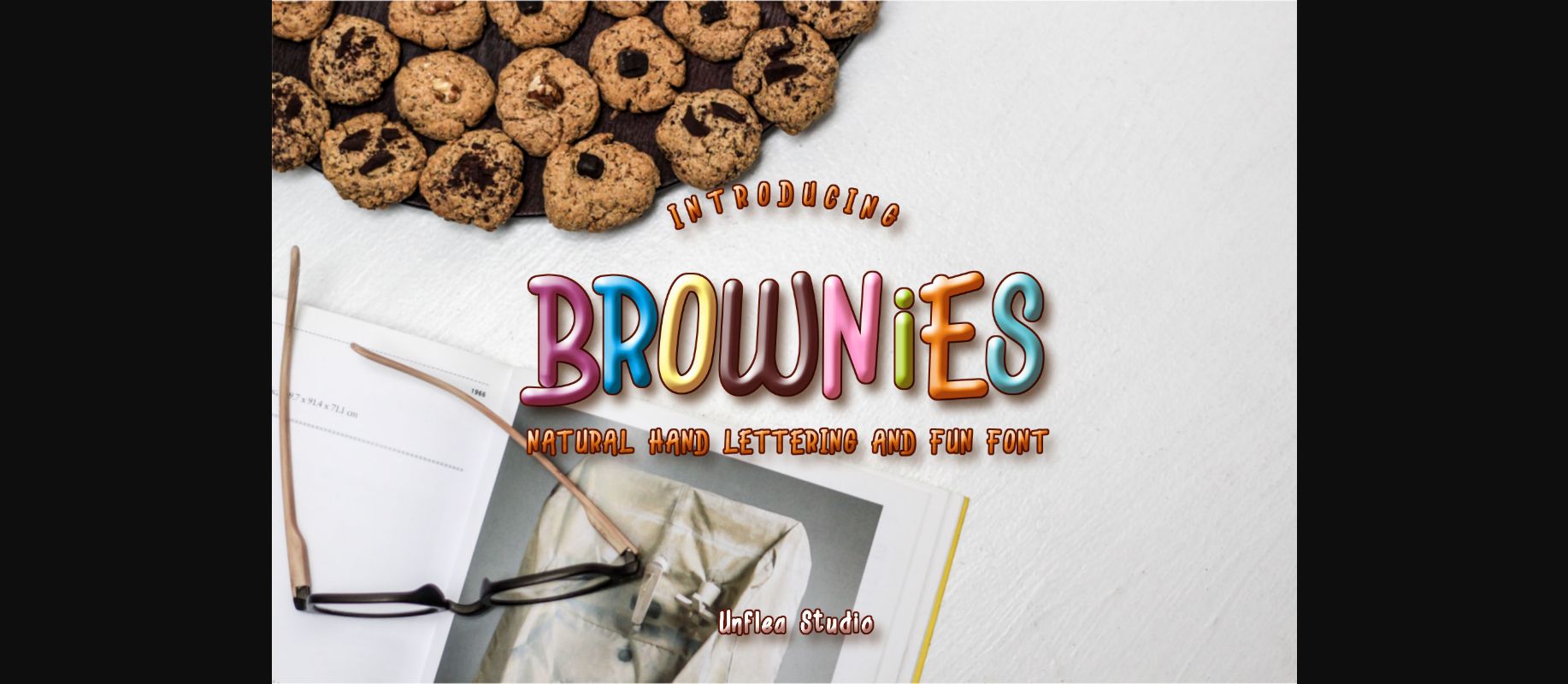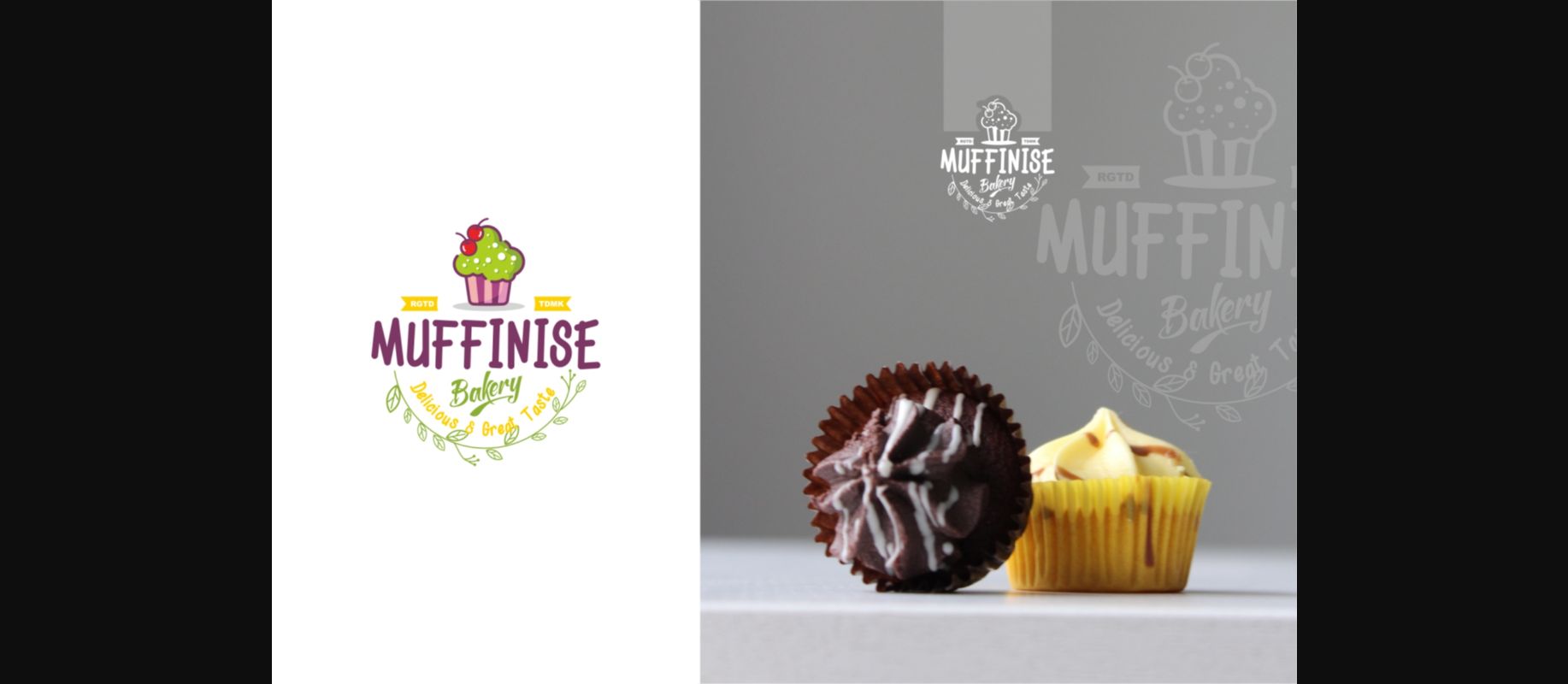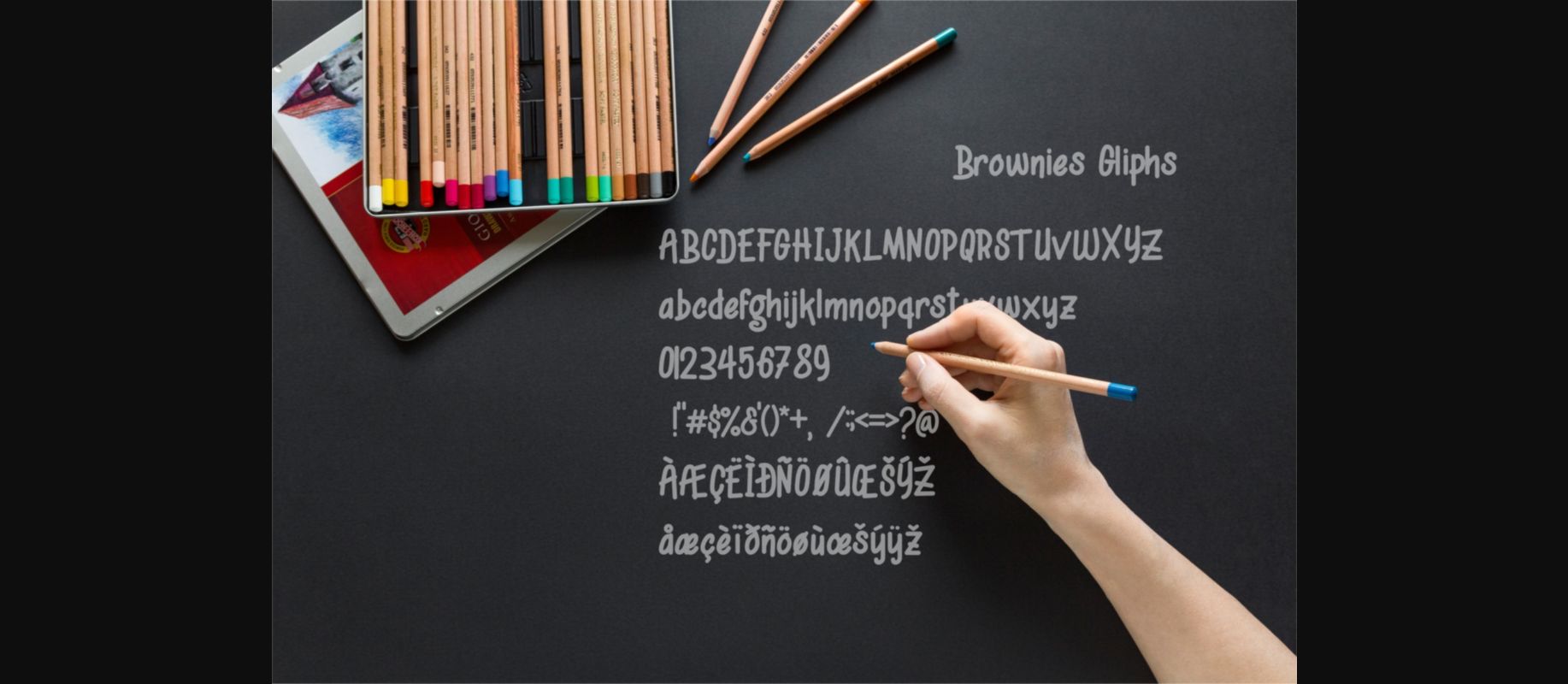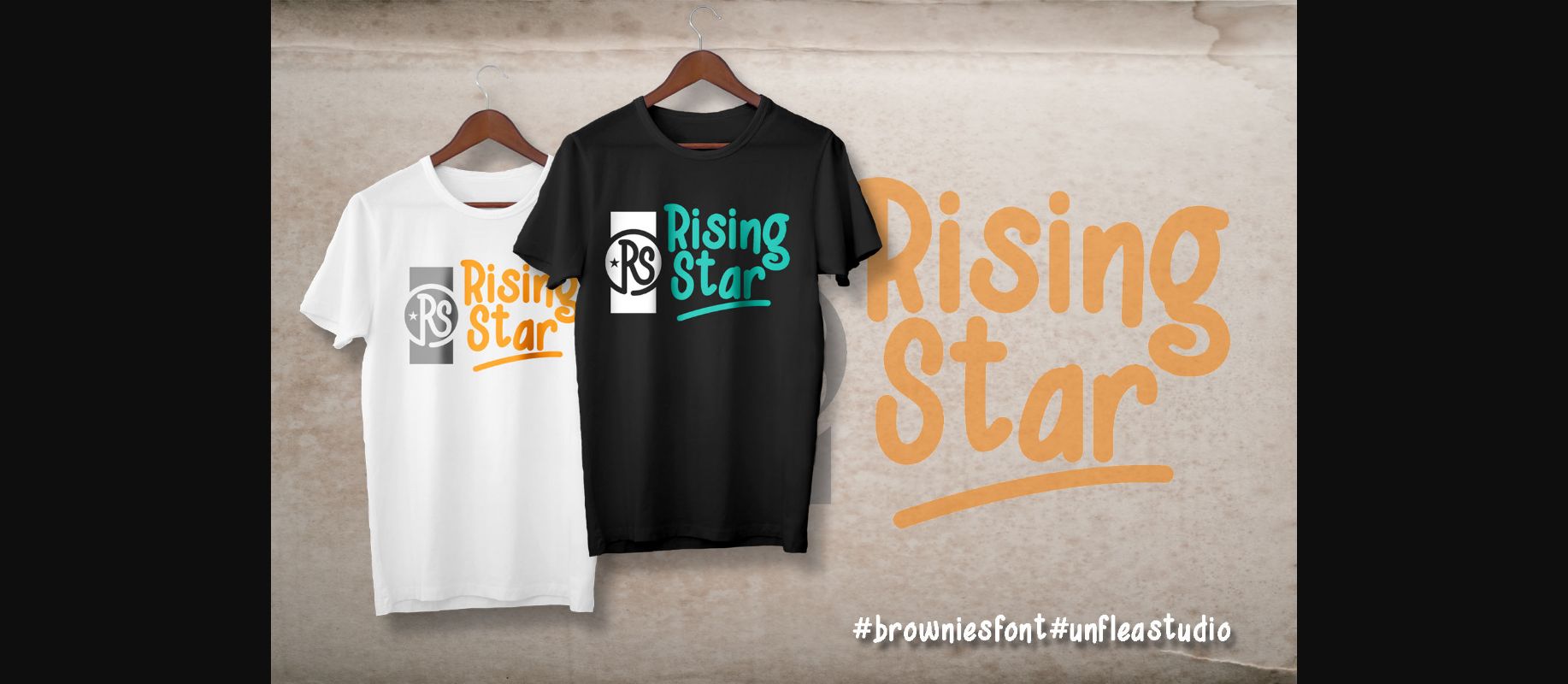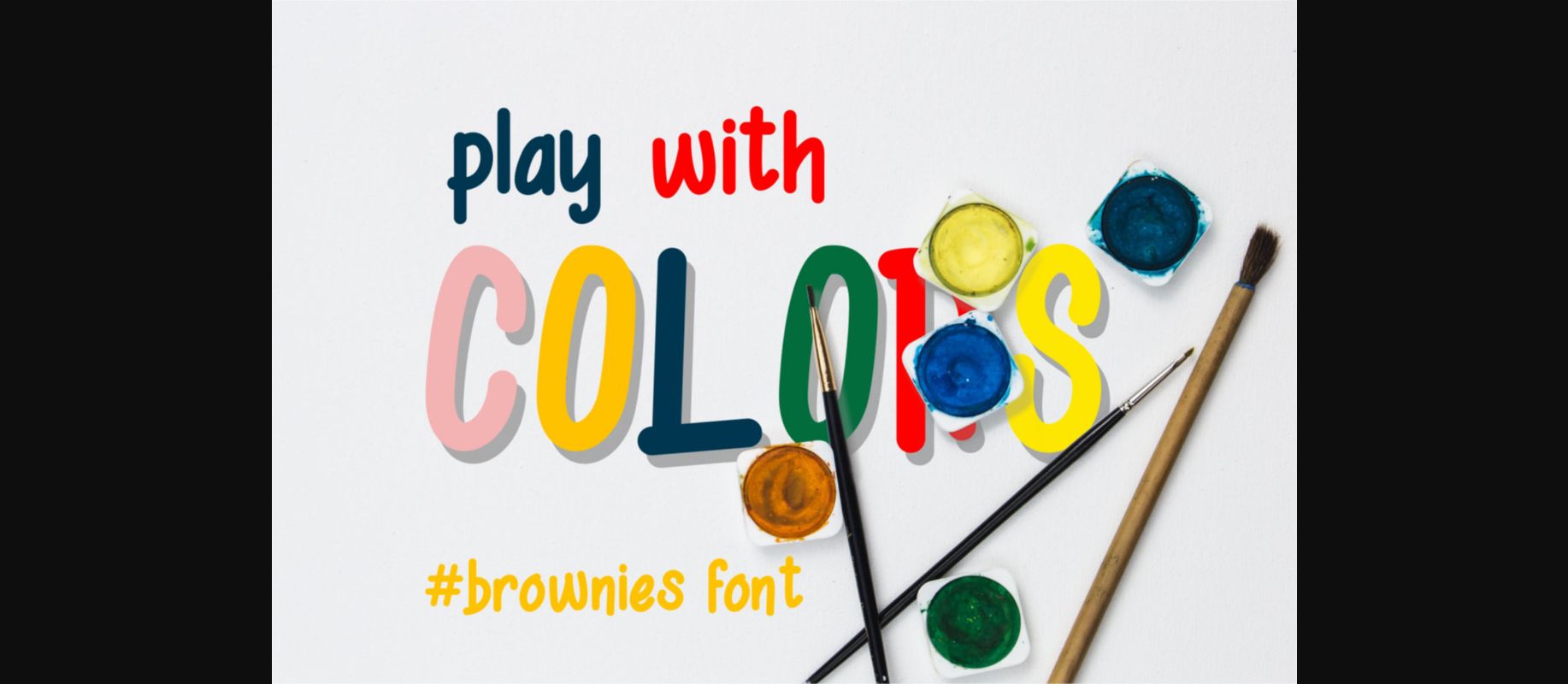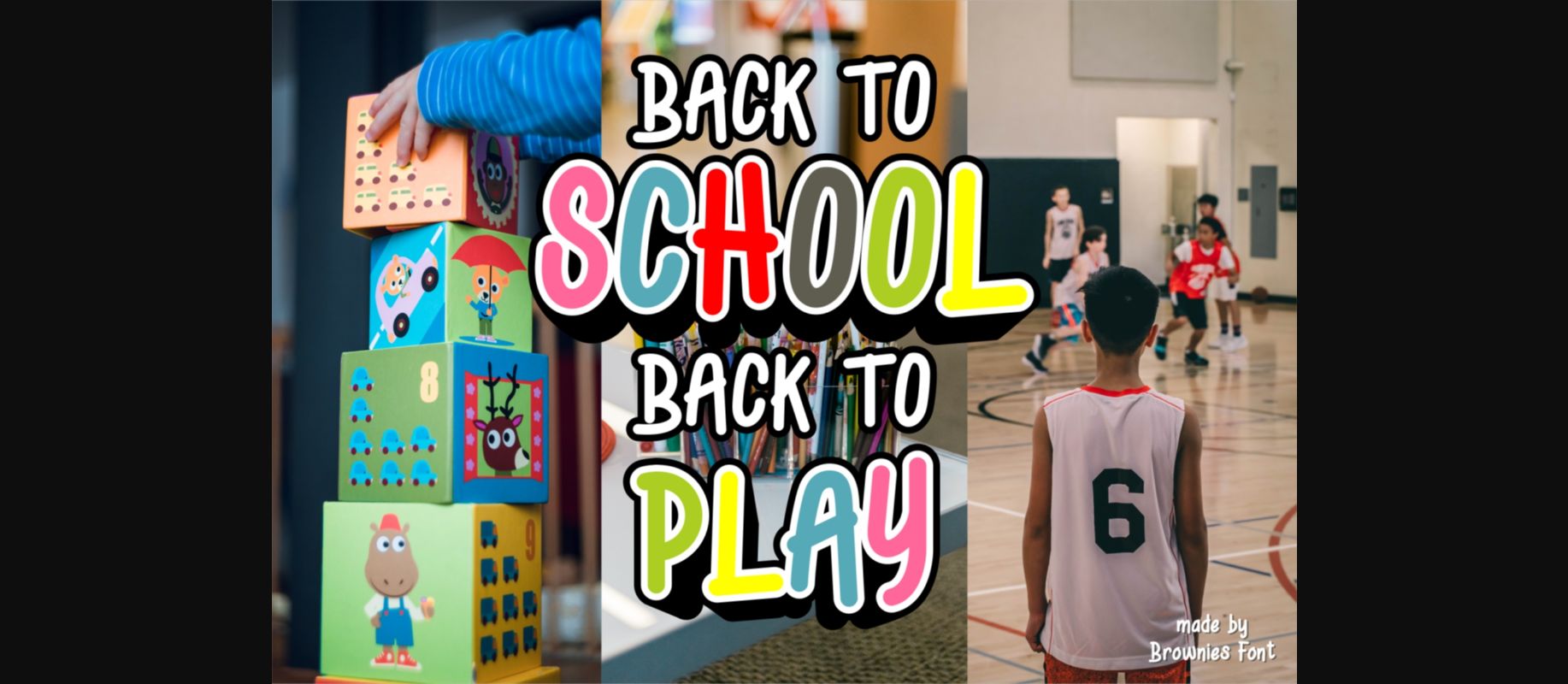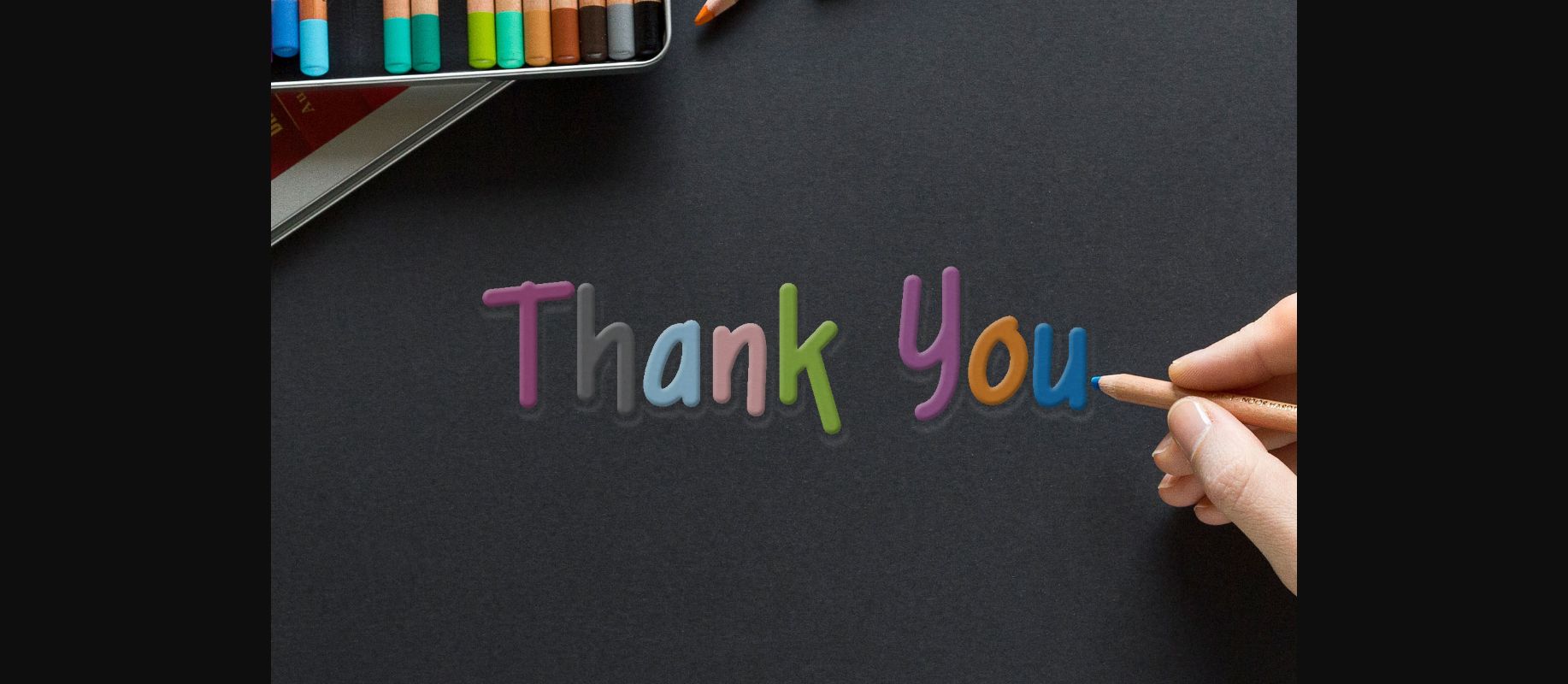
HomeDecorative FontsBrownies Font Decorative Fonts Brownies Font FacebookXPinterestWhatsApp 1 of 7 About Brownies Font Brownies is a charming and modern decorative font. Fall in love with its playful look & feel! DOWNLOAD NOW People also explored Summer Flowers Font Hello Daisy Font Longbranch Manic Tambourine Renata Font Salty Cream Font Norges Font Fan Script Beaming Duo Font 264 0 TagsBrownies Font Previous articleMonogram Valentine FontNext articleShoot to Kill Font LEAVE A REPLY Cancel reply Comment: Please enter your comment! Name:* Please enter your name here Email:* You have entered an incorrect email address! Please enter your email address here Website: Save my name, email, and website in this browser for the next time I comment. Personal Use Free Mixed Artistry Personal Use Free Read more about this font The Bocah Personal Use Free Read more about this font Abberancy Personal Use Free Read more about this font Groomer Personal Use Free Read more about this font BLOG Using Fonts in Digital Marketing: Tips to Strengthen Your Brand Identity In the realm of digital marketing, every visual element plays a crucial role in shaping a brand's identity, and fonts are no exception. The... Top 7 Google Fonts Alternatives for Faster and Privacy-Friendly Web Design (2025) Exploring Font Trends 5 Fonts That Will Dominate Design Trends in 2026